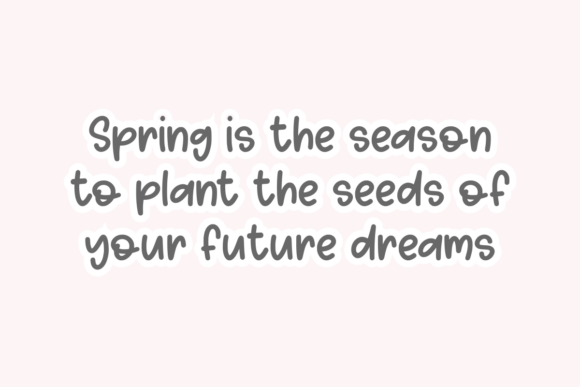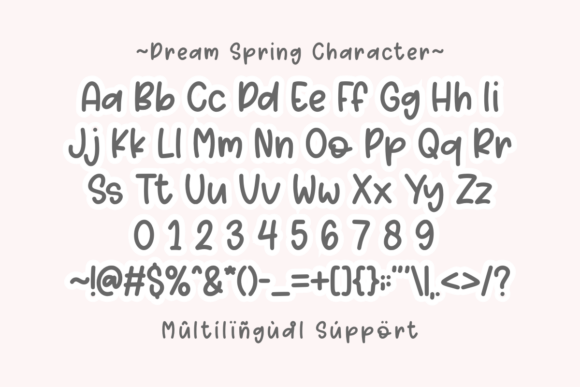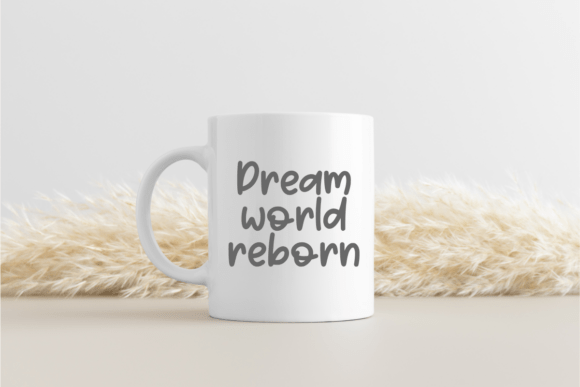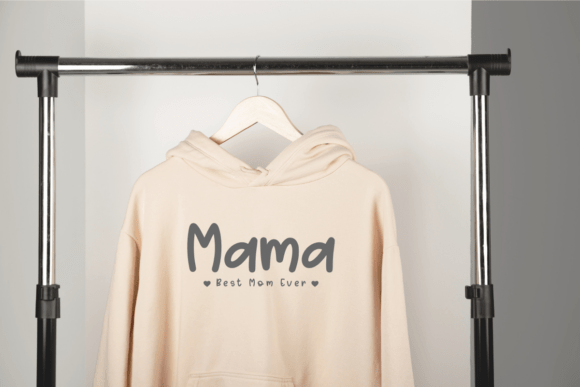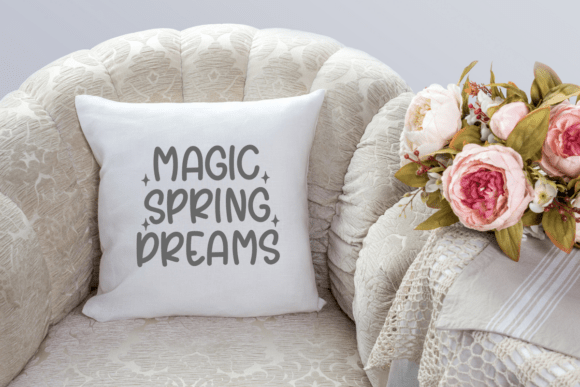
Dream Spring Font: The Perfect Addition to Your Creative Projects
Are you a creative mom who loves DIY, journaling, and Cricut crafts? Look no further than the Dream Spring font! This adorable and playful handwritten font is perfect for adding a personal touch to your planners, stickers, cards, quotes, and craft projects. In this article, we’ll dive into the world of Dream Spring and explore its features, benefits, and uses.
What is Dream Spring Font?
Dream Spring is a beautiful, hand-written font that exudes a sense of playfulness and whimsy. Its cute and curly letters are designed to add a touch of warmth and personality to any project. Whether you’re creating a planner, sticker, card, or quote, Dream Spring is the perfect choice. Its unique and distinctive style sets it apart from other fonts, making it a great addition to your font collection.
Features of Dream Spring Font
- Cute and Playful: Dream Spring is a font that is sure to bring a smile to your face. Its playful and whimsical design makes it perfect for projects that require a touch of personality.
- Handwritten: This font is carefully crafted to resemble handwritten text, giving it a warm and personal feel.
- Versatile: Dream Spring can be used for a wide range of projects, from planners and stickers to cards and quotes.
- Perfect for DIY and Crafting: If you love DIY, journaling, and Cricut crafts, Dream Spring is the perfect font for you.
Benefits of Using Dream Spring Font
So, why should you choose Dream Spring for your projects? Here are just a few benefits of using this amazing font:
- Adds Personality: Dream Spring adds a touch of personality to your projects, making them stand out from the crowd.
- Easy to Read: Despite its playful design, Dream Spring is easy to read, making it perfect for projects that require a lot of text.
- Customizable: You can use Dream Spring in a variety of contexts, from digital projects to print materials.
- Inspires Creativity: Dream Spring is sure to inspire your creativity, helping you to come up with new and innovative ideas for your projects.
Uses of Dream Spring Font
Dream Spring is a versatile font that can be used for a wide range of projects. Here are just a few ideas to get you started:
- Planners: Add a personal touch to your planners with Dream Spring. Use it to create headings, titles, and inspirational quotes.
- Stickers: Dream Spring is perfect for creating adorable stickers for your journal or planner.
- Cards: Use Dream Spring to create beautiful and personalized cards for special occasions.
- Quotes: Add a touch of inspiration to your quotes with Dream Spring. Use it to create stunning quote graphics for social media or your blog.
- Cricut Crafts: Dream Spring is a great font to use with your Cricut machine. Use it to create custom vinyl decals, iron-on designs, and more.
Tips for Using Dream Spring Font
Here are a few tips for getting the most out of Dream Spring:
- Experiment with Colors: Dream Spring looks great in a variety of colors. Experiment with different colors to find the perfect look for your project.
- Mix and Match: Don’t be afraid to mix and match Dream Spring with other fonts. This can add visual interest to your project and make it more dynamic.
- Use it Sparingly: While Dream Spring is a beautiful font, it can be overwhelming if used too much. Use it sparingly to add a touch of personality to your project.
Dream Spring is a beautiful and versatile font that is perfect for creative moms who love DIY, journaling, and Cricut crafts. Its cute and playful design makes it ideal for adding a personal touch to your planners, stickers, cards, quotes, and craft projects. With its ease of use, customizability, and inspiring creativity, Dream Spring is a font that you’ll love working with. So why not give it a try and see what amazing projects you can create?